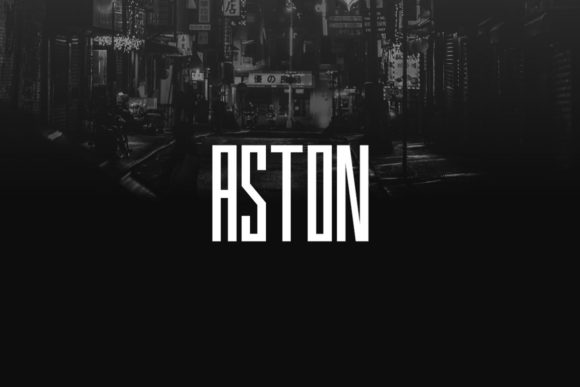
The Aston Font: A Cool, Robotic Display Font to Elevate Your Designs
An Honest Review of Aston Font
Aston is indeed a cool, robotic display font that has become an indispensable asset in my font library. Here’s what I love about it:
- ✨ Unique robotic style: Aston has a distinct futuristic feel that’s perfect for projects that require a technological or sci-fi edge.
- ✅ High legibility: Despite its stylized appearance, Aston remains highly legible, even at smaller sizes.
- 💡 Versatility: This font can be used for a wide range of projects, from tech and gaming to fashion and beauty.
However, there are a few quirks to consider:
- 🤔 Limited suitability for body text: Due to its stylized nature, Aston is best used for headlines, titles, or short paragraphs. It may not be the best choice for longer blocks of text.
- ⚠️ Some glyphs may require manual adjustment: Depending on the platform or software you’re using, some glyphs or special characters may require manual adjustment to ensure proper alignment.
The Backstory of Aston Font
Aston was designed by a team of typographers who aimed to create a font that embodies the spirit of innovation and technology. Inspired by robotics and futuristic designs, Aston combines sleek lines with a robotic aesthetic, making it perfect for projects that demand a modern edge.
| What type of projects is Aston best suited for? | Aston is versatile and can be used for a wide range of projects, including tech, gaming, fashion, and beauty, especially where a modern and edgy look is desired. |
| Can I use Aston for body text? | While Aston is highly legible, it’s primarily designed for headlines and titles. For longer blocks of text, a more traditional font might be more suitable. |
| Does Aston support OpenType features? | Yes, Aston supports various OpenType features, including ligatures and stylistic alternates, which can enhance your design. |